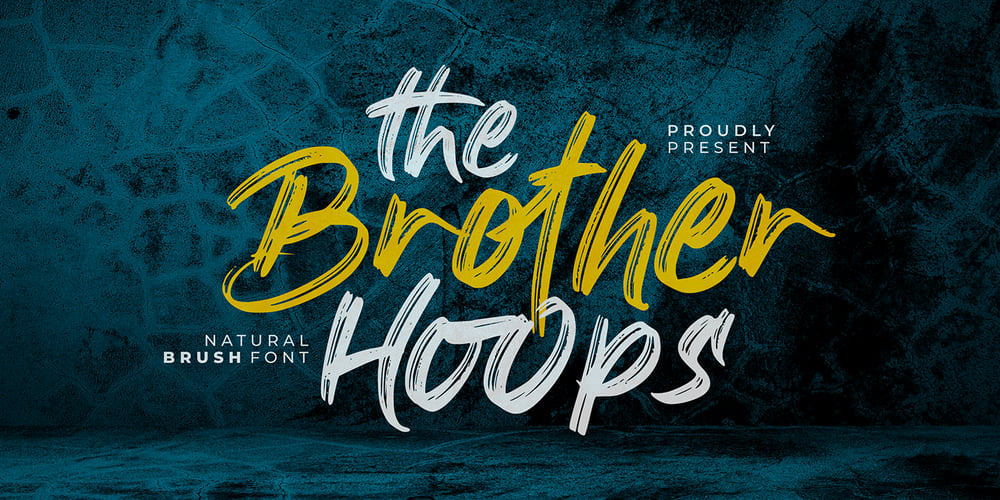
The Brother Hoops
The Brother Hoops font
The Brother Hoops Font Family was designed by Icep Anwar Fadhil and published by Figuree Studio. The Brother Hoops contains 2 styles and family package options. Introducing The Brother Hoops!The Brother Hoops is strong hand-drawn brush font that combines attractive curves with a fresh urban edge; delivering a stylish brush font that is guaranteed to add an eye-catching appeal to your logo designs, brand imagery, handwritten quotes, product packaging, merchandise, social media post, or website font.Features: Uppercase and Lowercase Number and Punctuation Ligature Extra Swash Versatile for branding, headline, or printing product Detailed dry brush markers I hope you enjoy this font. If you have questions, don’t hesitate to give me a message